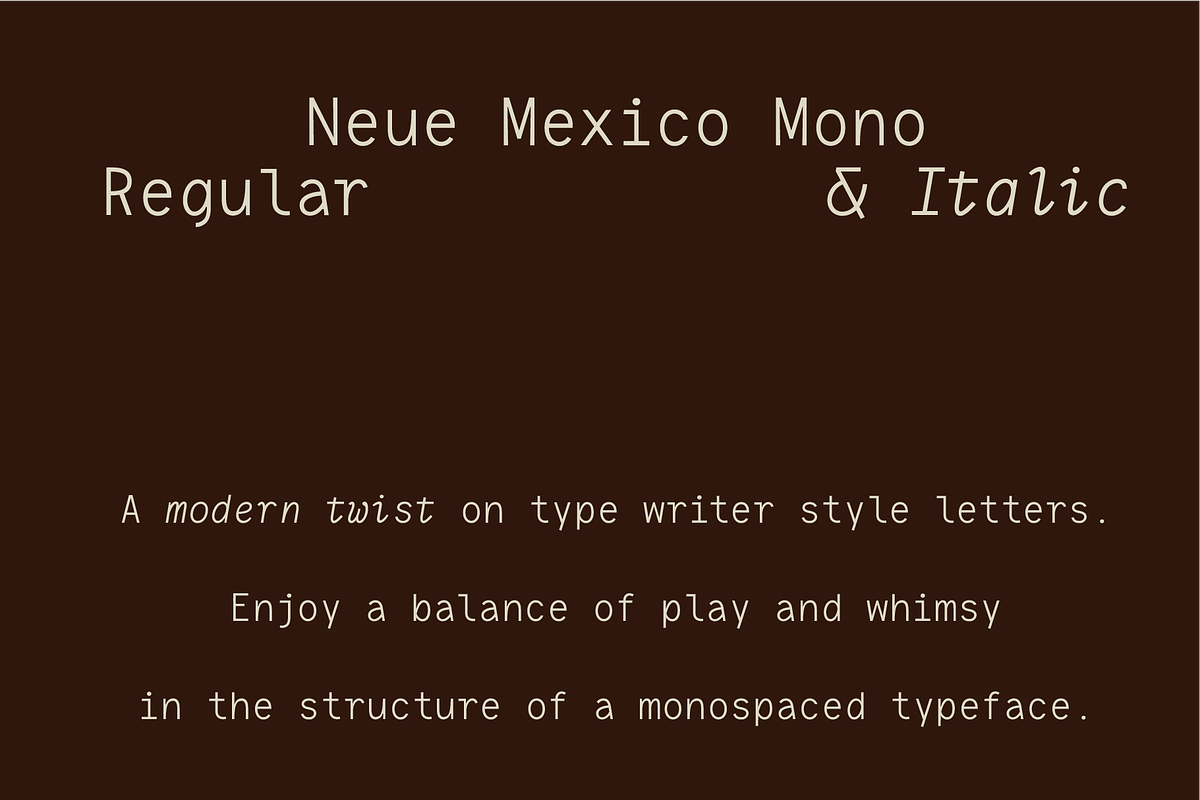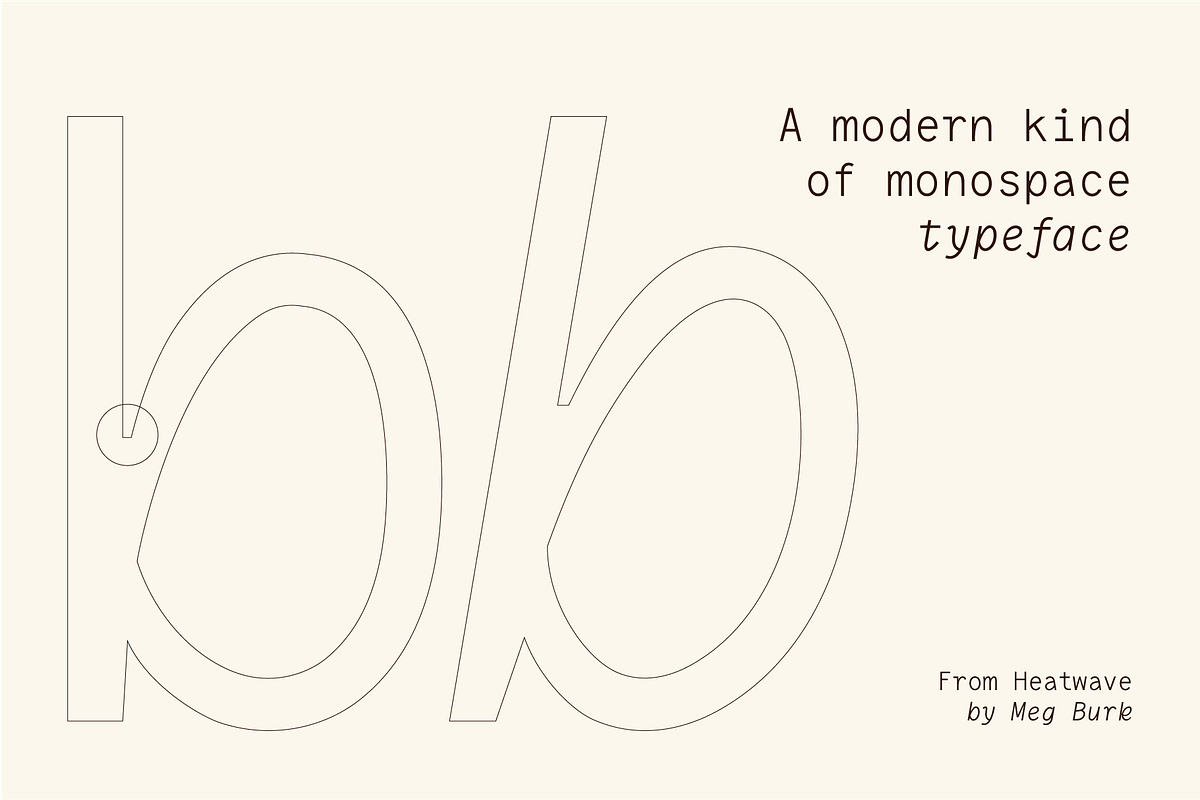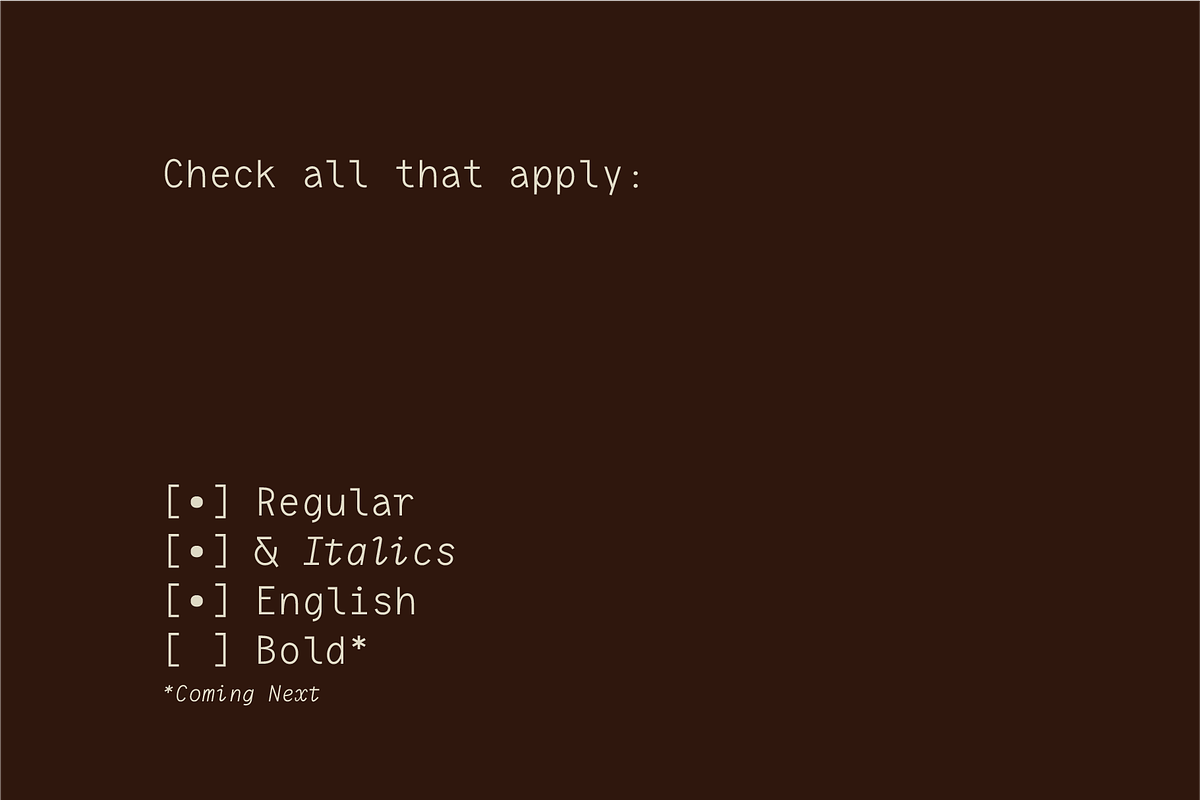
Neue Mexico Mono
This monospace typeface was born from the need of a structured typeface that wasn’t too rigid. It needed a balance of whimsy and play to bring life to this new take on a mono font. Enjoy this fresh modern take.
Crafted between October 2025 and March 2026, this monospace font has a lovely italic and unexpected shapes throughout.